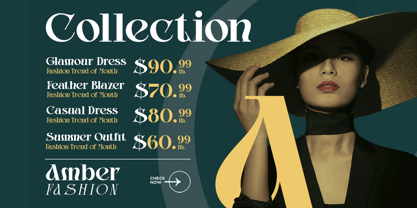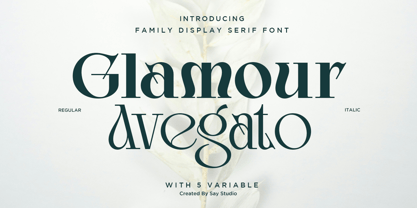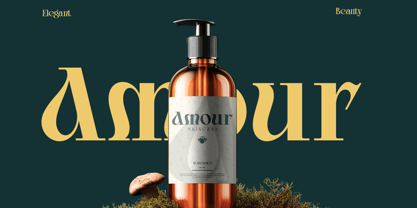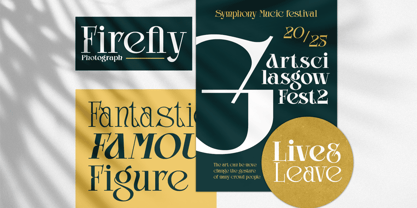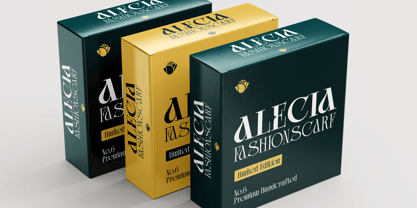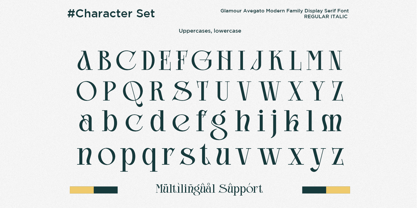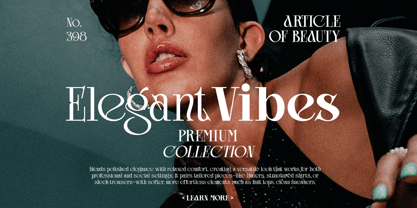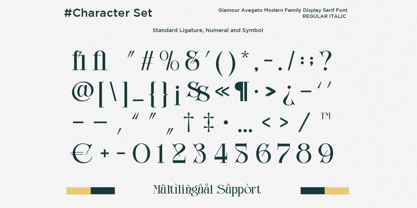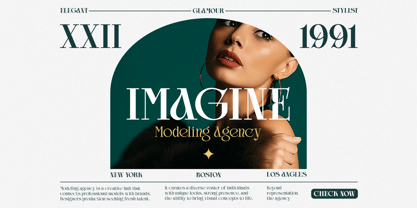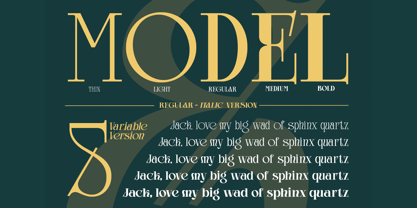
Glamour Avegato
The Glamour Avegato Font Family was designed by Mussyayin and published by Say Studio. Glamour Avegato contains 10 styles and family package options. More about this family
Glamour Avegato is an elegant display serif font family that combines timeless sophistication with contemporary refinement. Designed with graceful curves, distinctive high-contrast strokes, and beautifully crafted details, this typeface creates an unforgettable visual presence for premium design projects. Available as a variable font family, Glamour Avegato offers exceptional flexibility while preserving its refined and expressive character across every weight.
Created for designers who appreciate sophisticated typography, Glamour Avegato is perfect for fashion branding, editorial layouts, luxury-inspired packaging, beauty products, cosmetics, magazines, wedding stationery, and premium logo design. Its stylish letterforms add elegance and personality to headlines, branding materials, advertisements, and modern visual identities without sacrificing readability.
Whether you're building a fashion campaign, designing cosmetic packaging, creating magazine covers, or developing a memorable brand identity, Glamour Avegato delivers a harmonious balance between classic beauty and modern versatility. Its refined details and elegant aesthetic make it an excellent choice for creative professionals seeking typography that communicates style, confidence, and sophistication.
5 Variable Weights
Thin to Bold Variable
Regular and Italic Style
Uppercase and Lowercase
Number, Symbol, and Punctuation
Multi Language Support